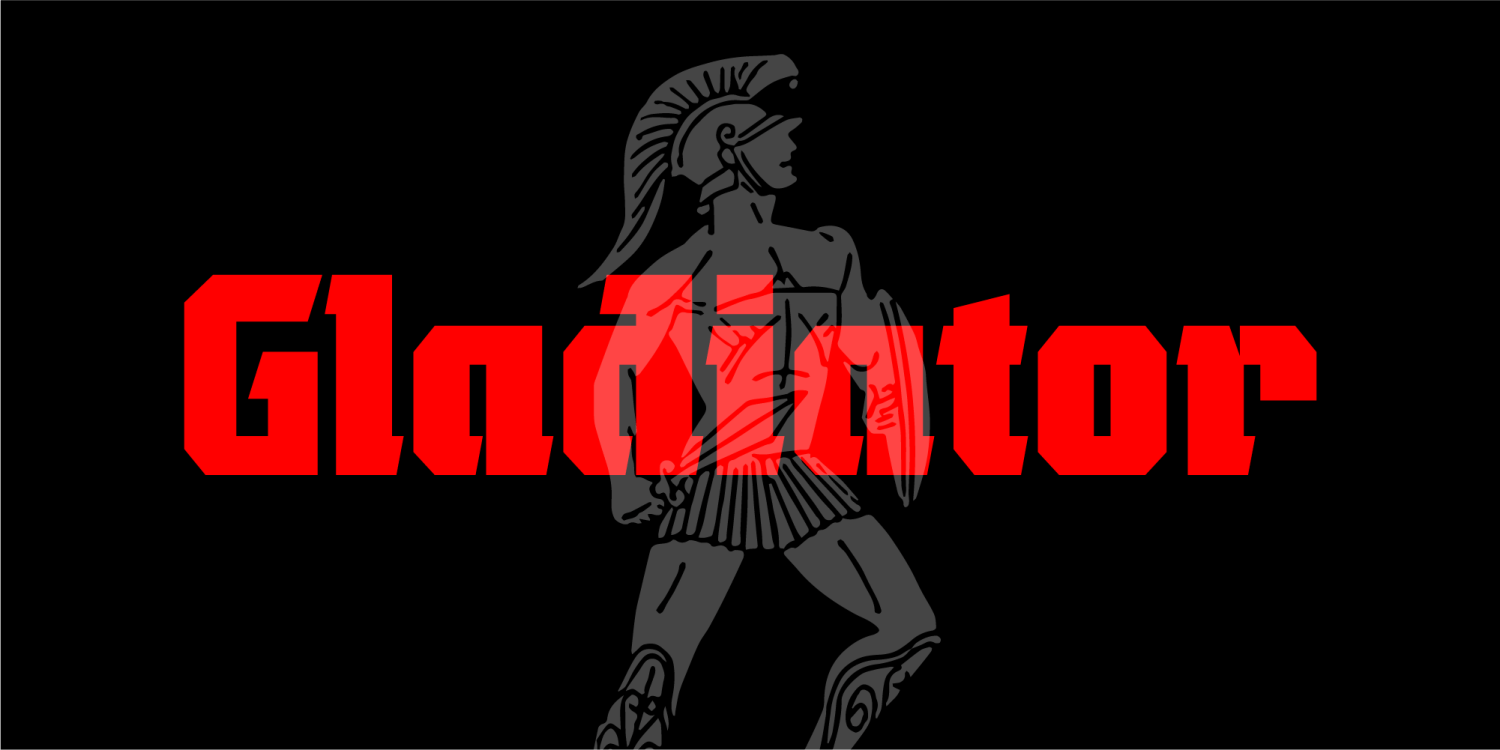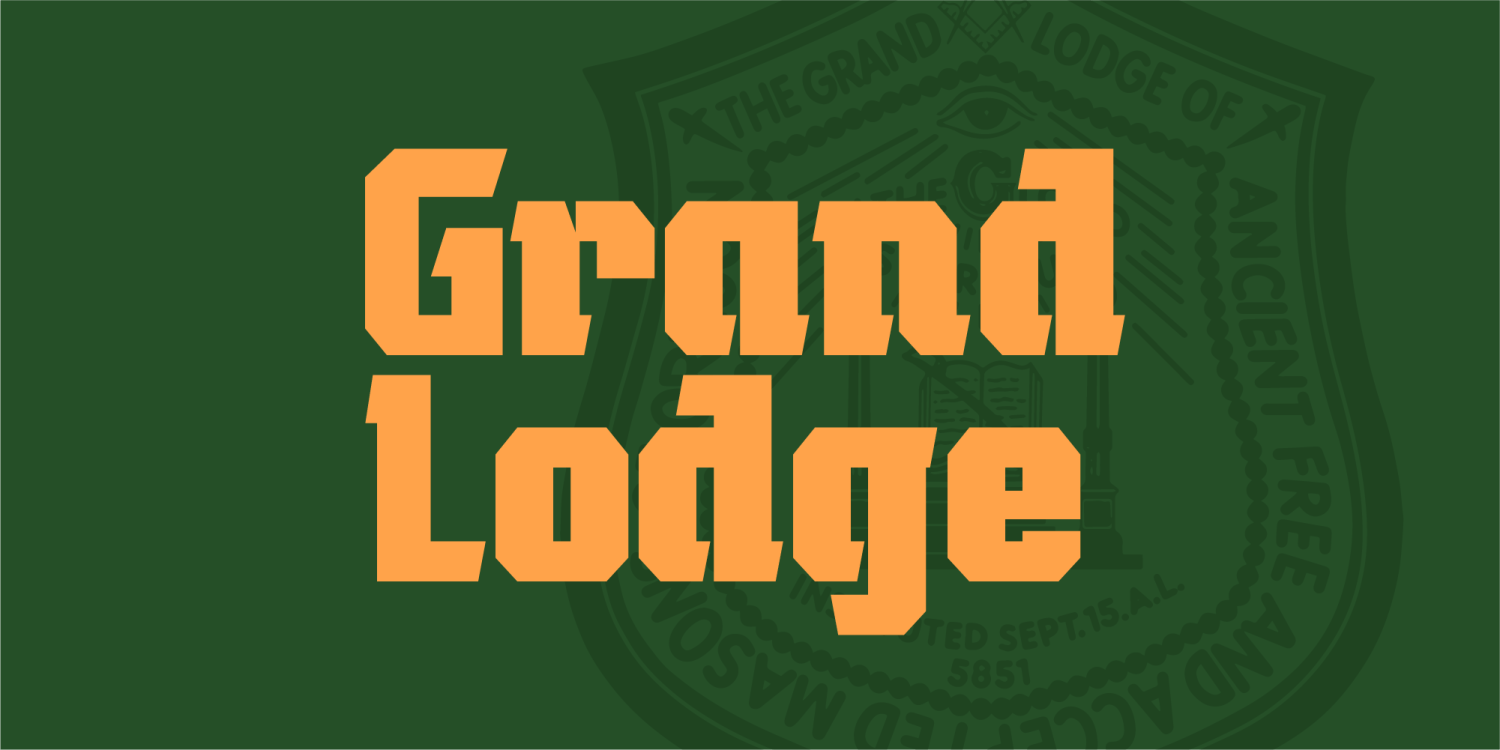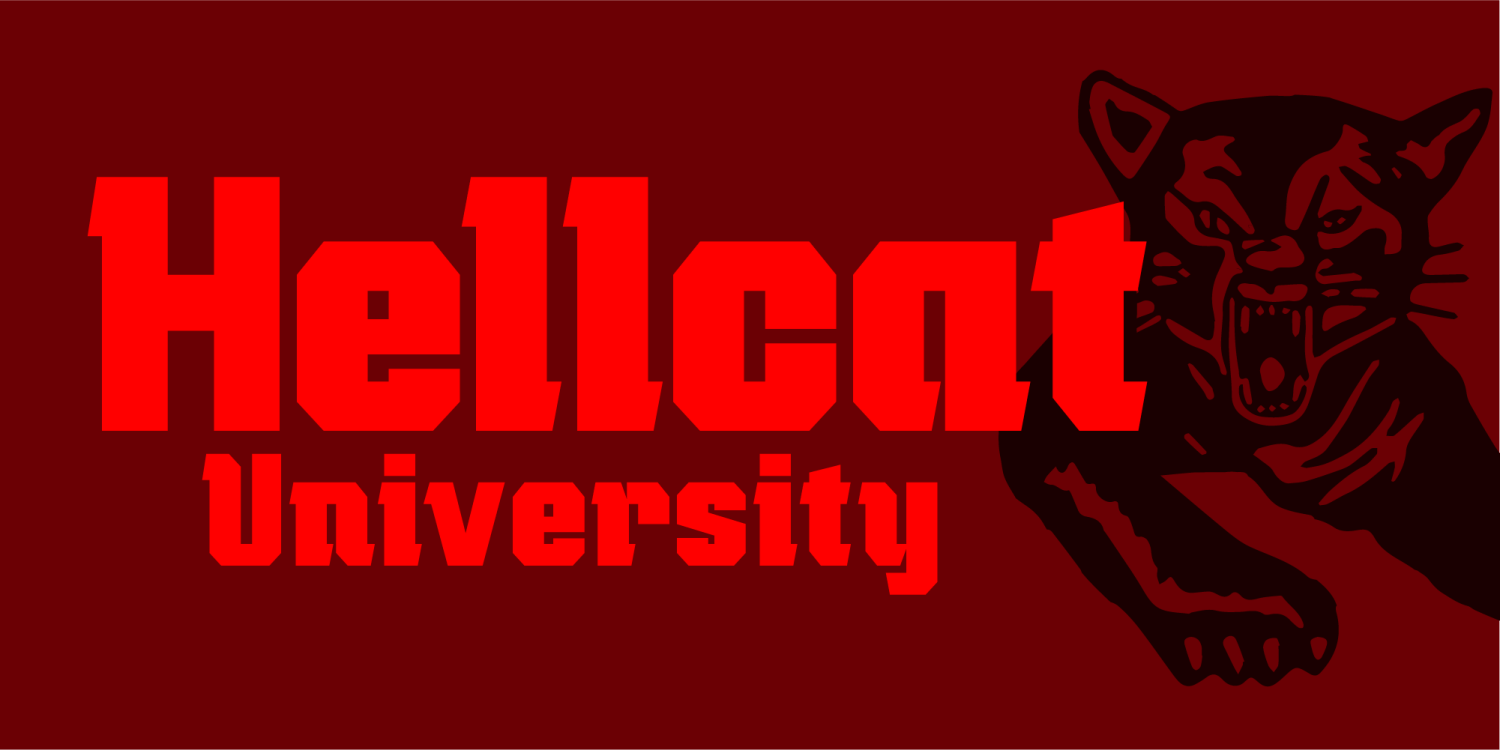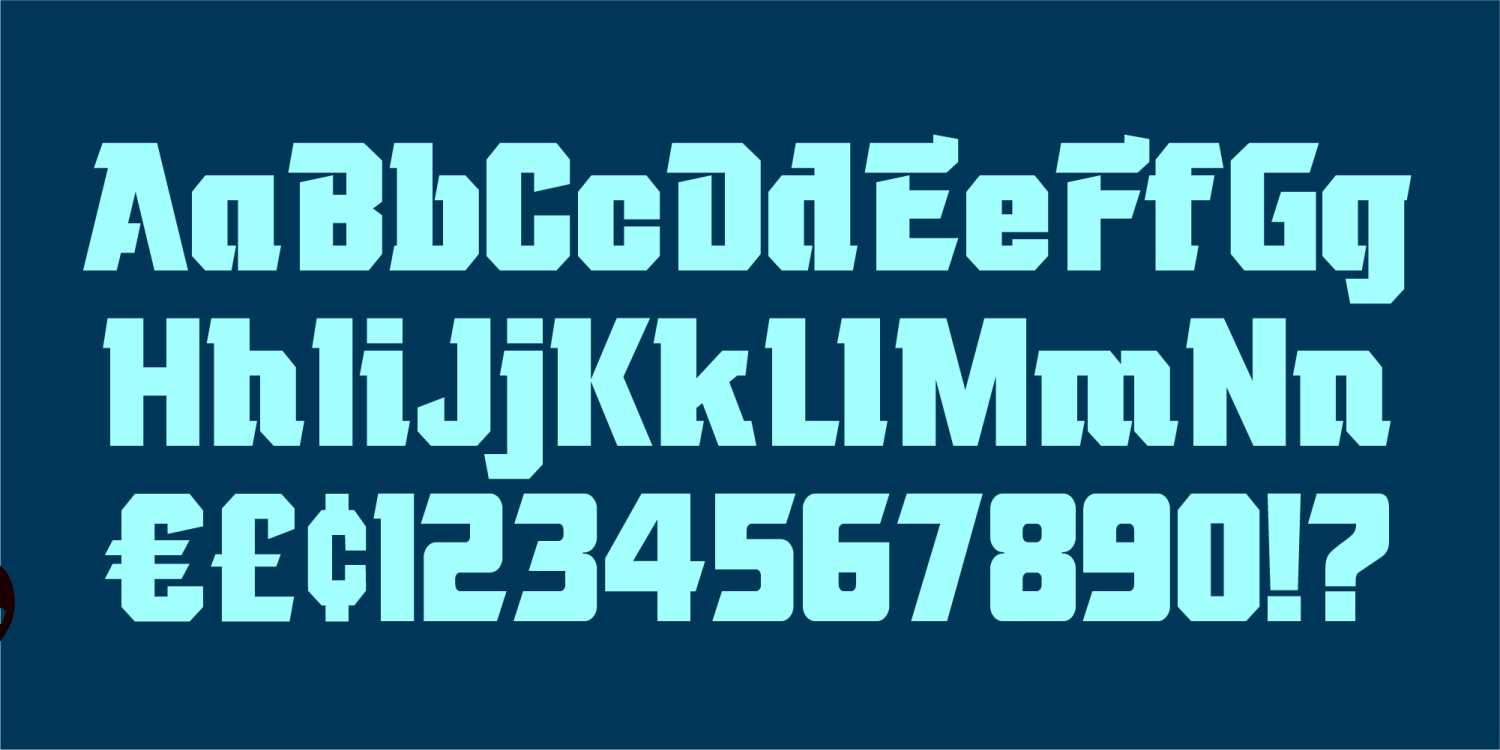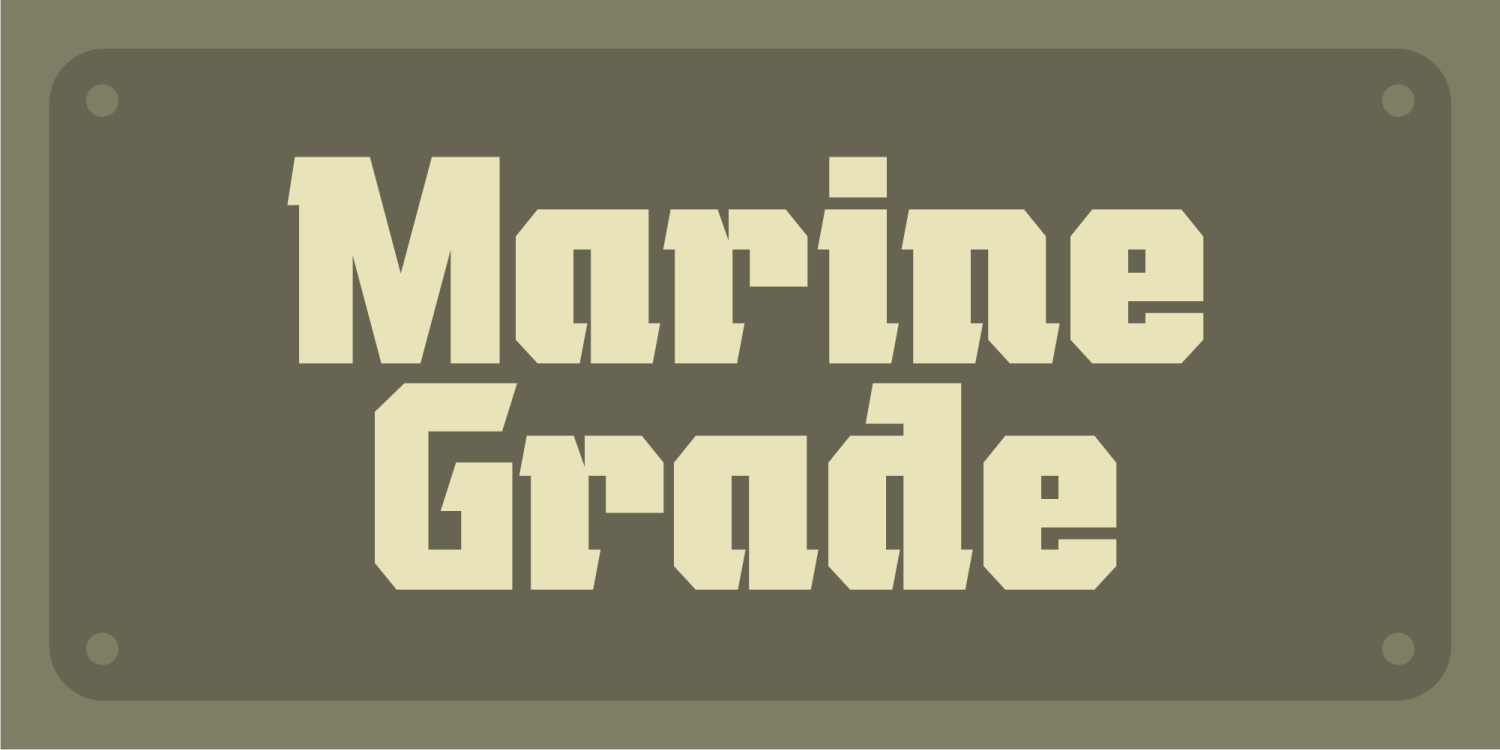
Introducing Gladiator, the embodiment of industrial might in typographic form. With its robust, metallic angles and unyielding lines, this font stands as a fearless warrior in the realm of typefaces. Unleash the power of precision and strength as Gladiator commands attention with its bold presence, forging a seamless fusion of mechanical prowess and typographic artistry.